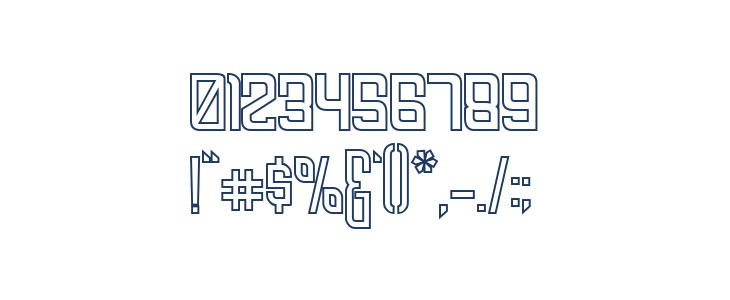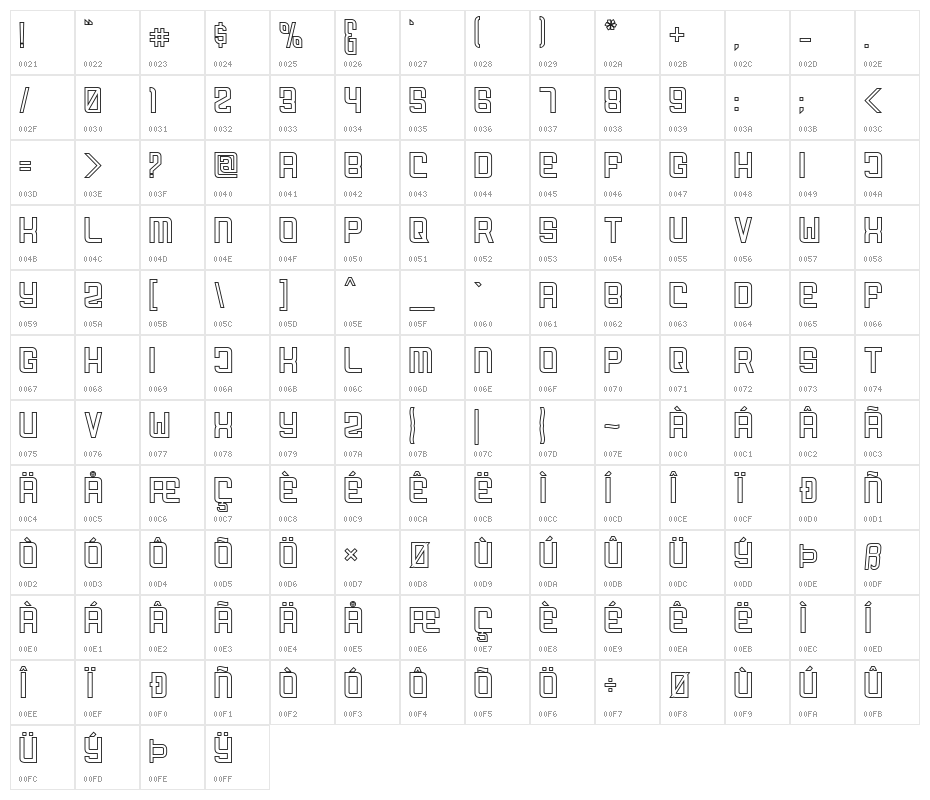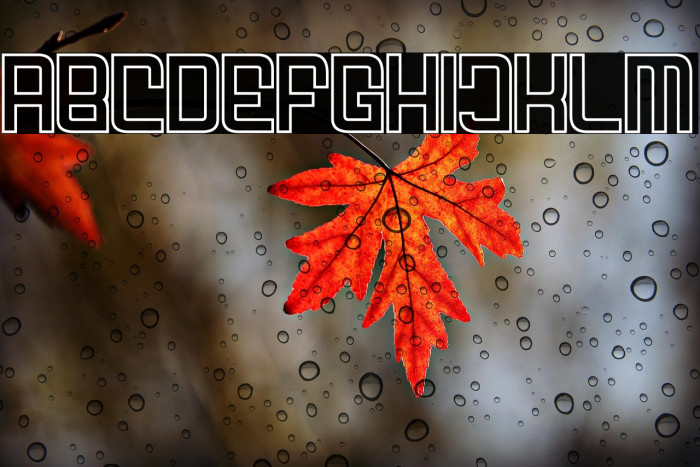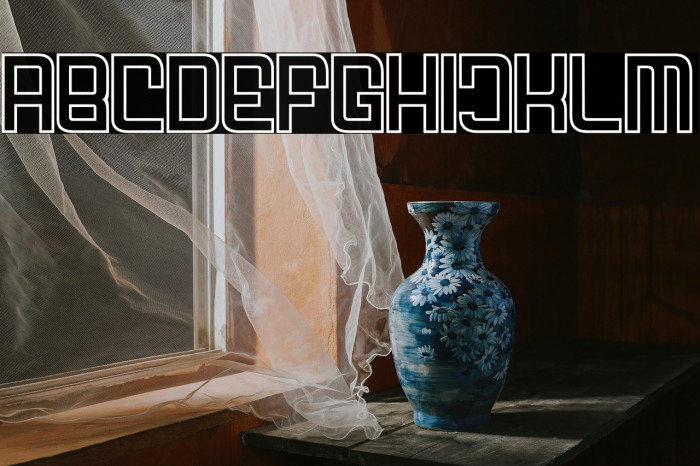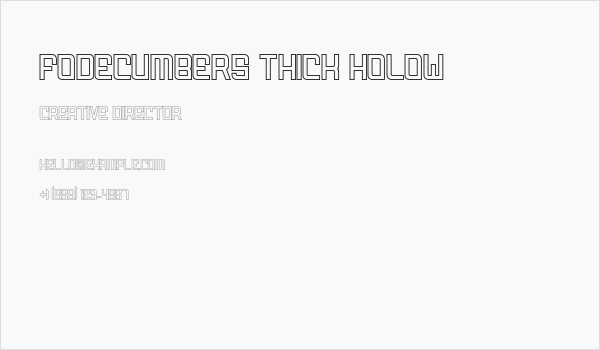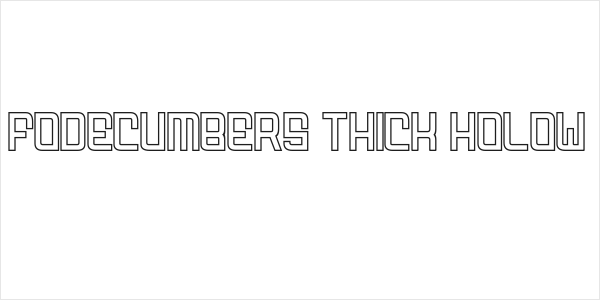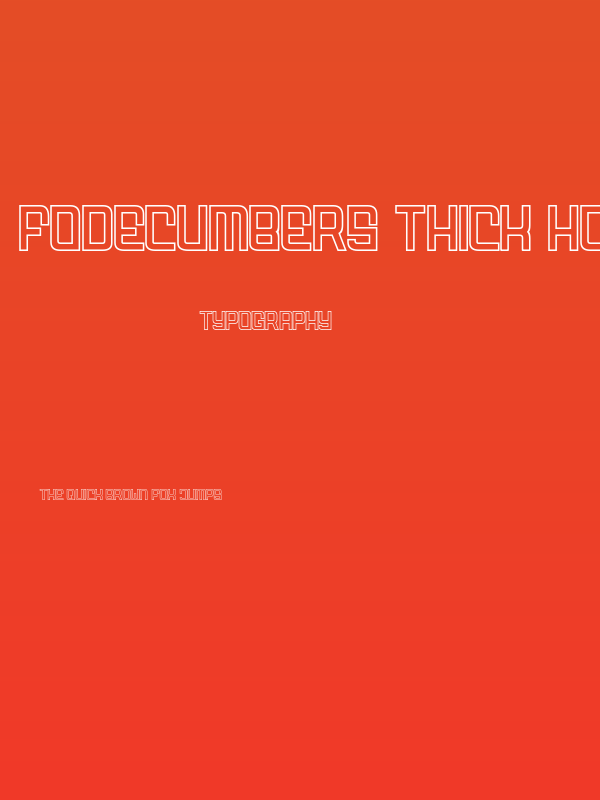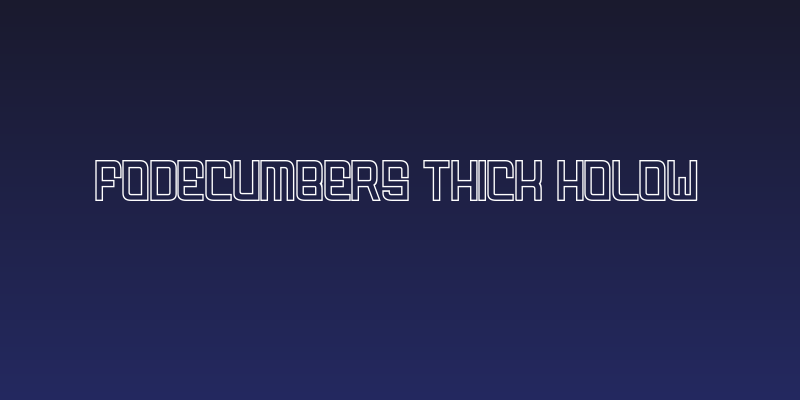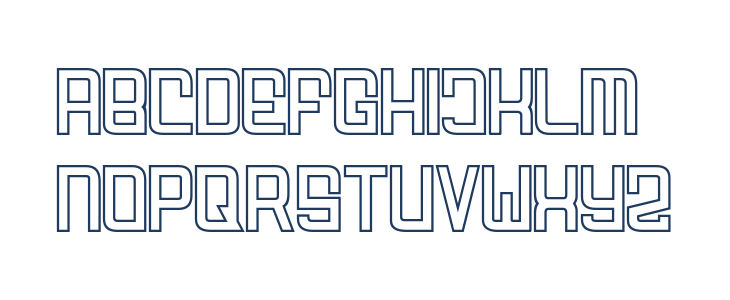
FODECUMBERS THICK HOLOW Font
FODECUMBERS THICK HOLOW Description
This font features a bold, geometric design with a hollow interior, creating a striking and modern appearance. The characters are constructed with thick, uniform lines that form a rectangular, boxy shape, emphasizing a futuristic and digital aesthetic. The uppercase and lowercase letters maintain consistent proportions, while the numerals and special characters follow the same design principles, ensuring a cohesive look across all elements. The font's hollow nature allows for creative use of background colors or textures, making it versatile for various design applications.
Proposed ProjectsIdeal for tech-themed projects, digital artwork, futuristic branding, and eye-catching headlines.